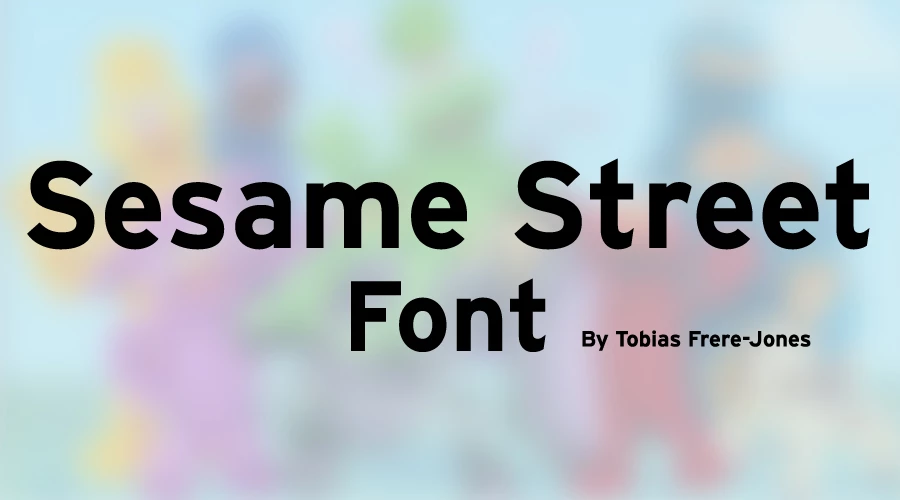
About the font
Today we’re going to talk about a logo font called Sesame Street Font. It comes from the famous show of the same name. The show has been an evergreen favorite among children and adults. Joan Cooney and Lloyd Morrisett created it. Sesame Street was first broadcasted on 10th November 1969.
Interstate Bold Compressed is the font which was used in Sesame Street’s logo, designed by NY-based designer Tobias Frere Jones (1993–1999) and published through the Font Bureau type foundry.
It is a sans serif typeface with various styles, numbers, linings, etc. Additionally, the font has 246 glyphs and 1000 units per EM with horizontal and no kerning.
The only natural substitute for the Sesame Street logo font is the Circe font from the Paratype foundry. This font was designed by Russian type designers Alexander Lubovenko, Maria Kharlamova, and Alexandra Korolkova.
Sesame Street font is a typeface that is designed to look like the characters on the popular children’s television show. It has an awesome appearance and bold letters, which makes it great for use in type design projects.
Font Information
| Name | Sesame Street Font |
| Type | Sans-Serif |
| Designer | Tobias Frere-Jones |
What kind of font is this?
Ans: The Sesame Street font is a logo font used in the the children tv series named: Sesame street.
Who is the designer of this font?
Ans The font used in this logo was designed by Tobias Frere-Jones.